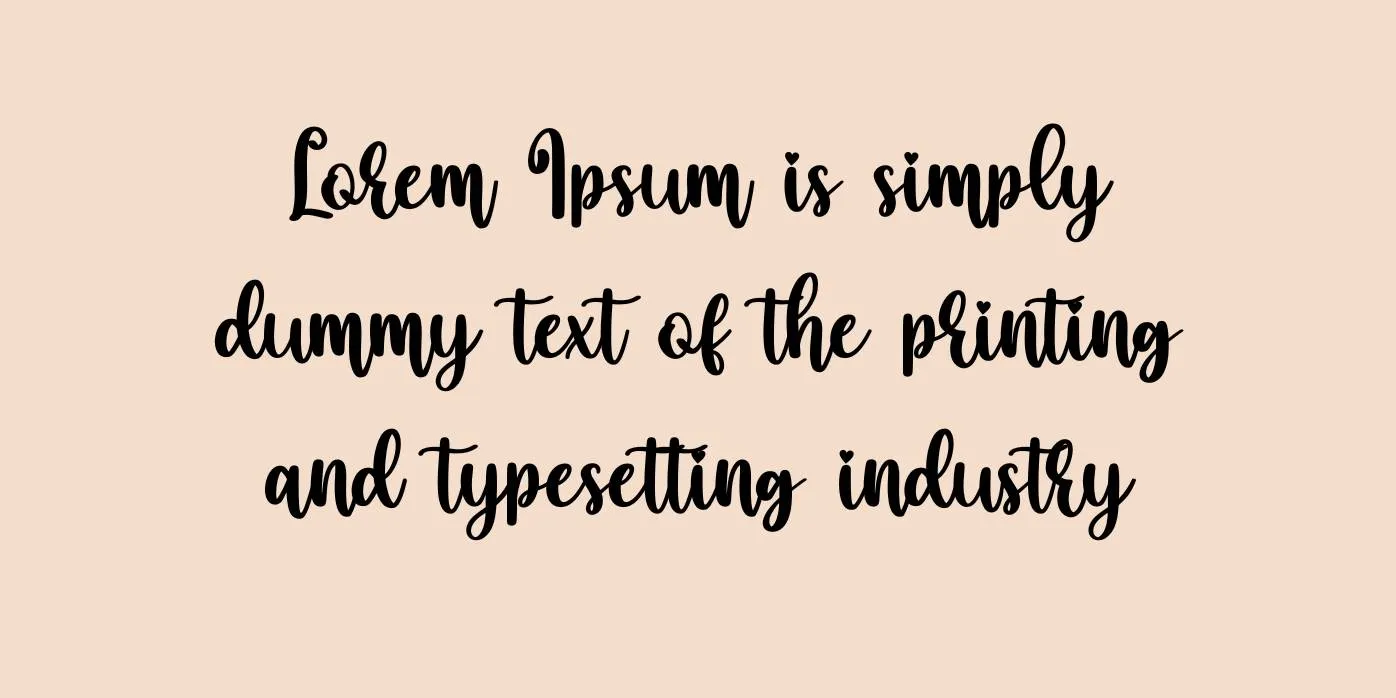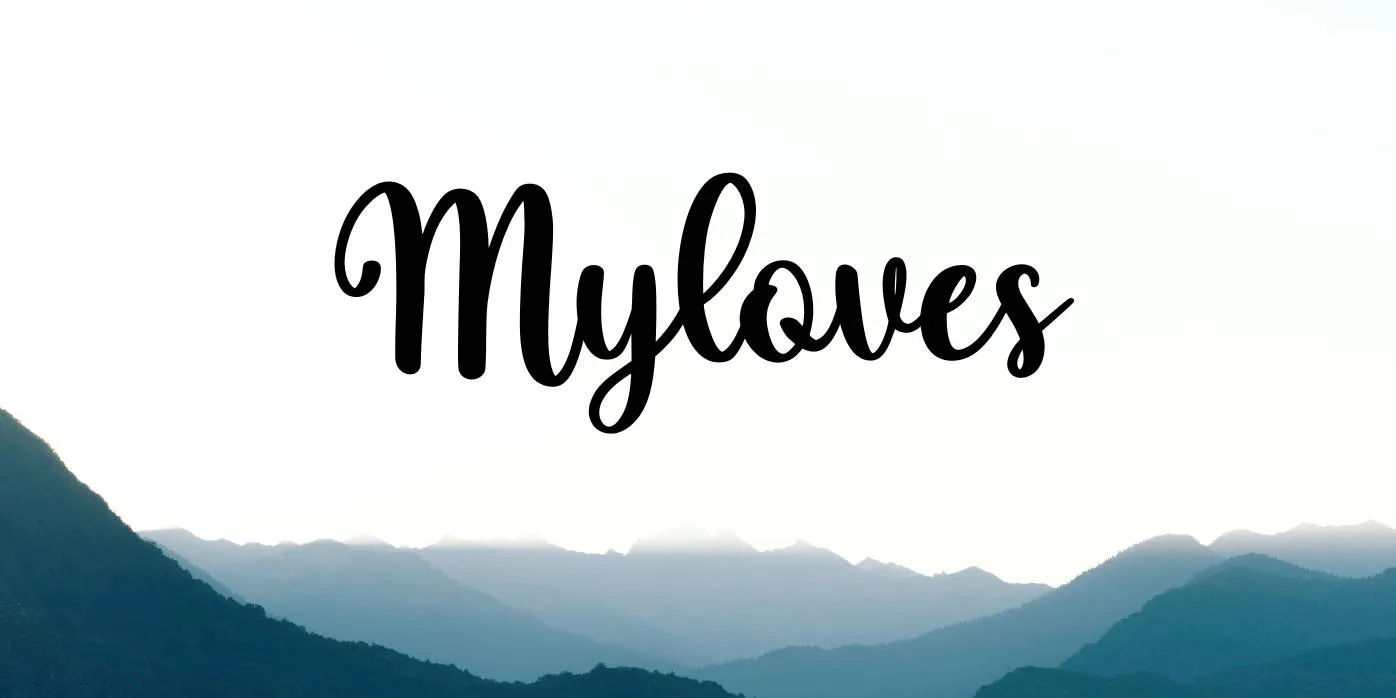
My Love Font
My Love Font is a very lovely handwritten font and can be used to design different projects. This is a very nice and useful font. It was designed by Beary type.  It contains 299 characters, 267 glyphs, and 1000 units per Em. The weight of the font is semi-light and its width is medium(normal).
It has characters, symbols, numbers, small letters, capital letters, punctuations, and special characters. You can make romantic handwritten notes, and romantic quotes by using this font. For making wedding invitations, birthday party invitations, and other invitations you can also use this font. It is a suitable choice for making both print and digital media.
To make attractive headings, titles, and logos for different brands and projects. You can make attractive websites and graphic designs. It can also be used to edit designs in Adobe Photo, CSS, and Canva. You can also make attractive postcards and design any themed home decorations for kids.
It is a very amazing handwritten font with a romantic touch and was designed by Beary Type. You can make so many different projects by using this font. What font is similar to My Love Font? It has many similar fonts but the closest font is restu Font.